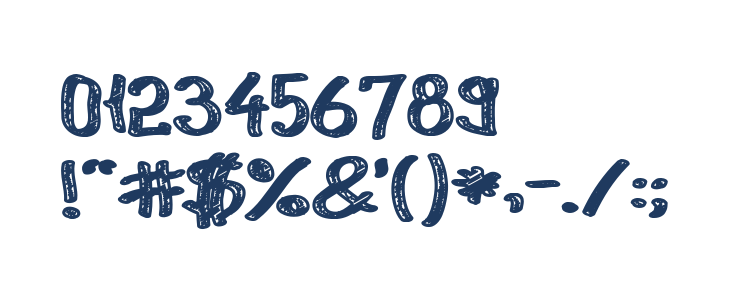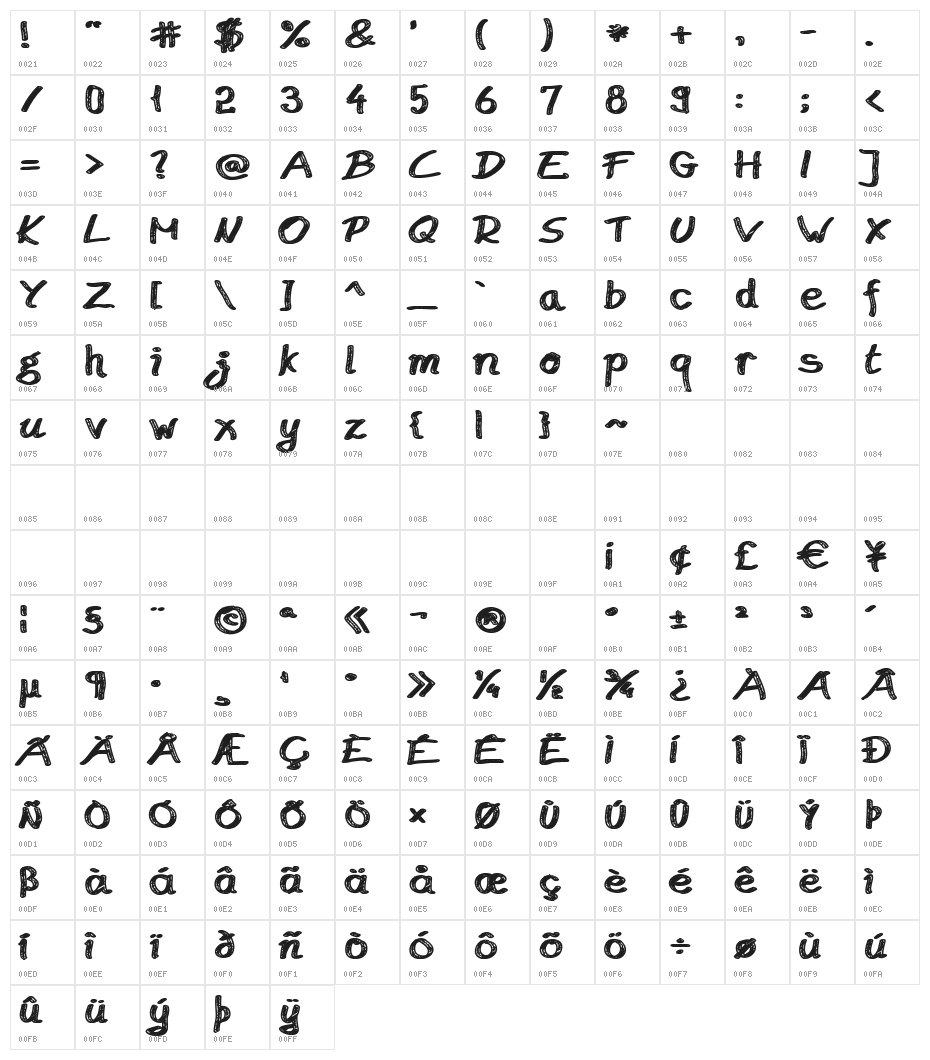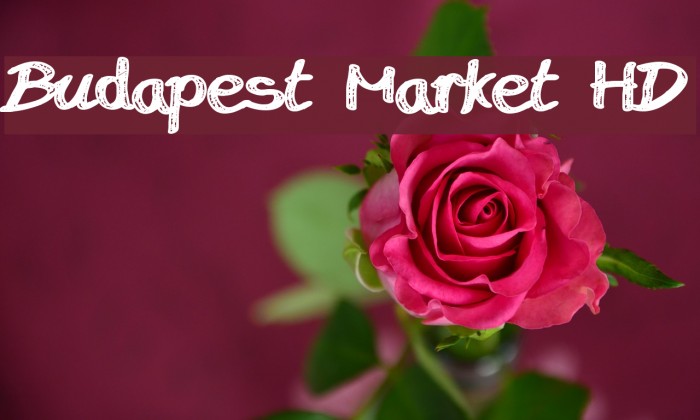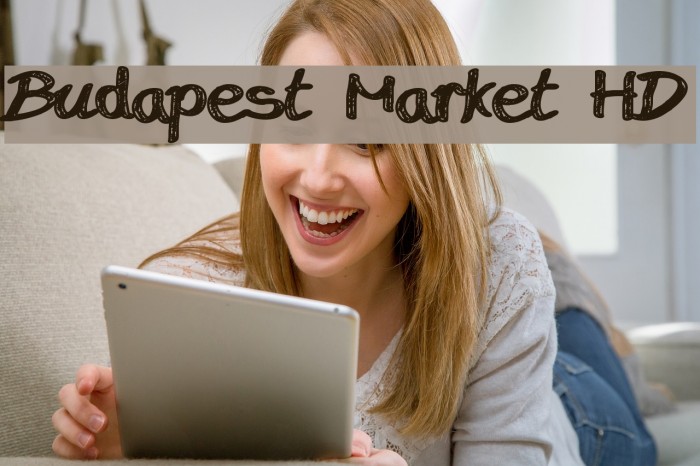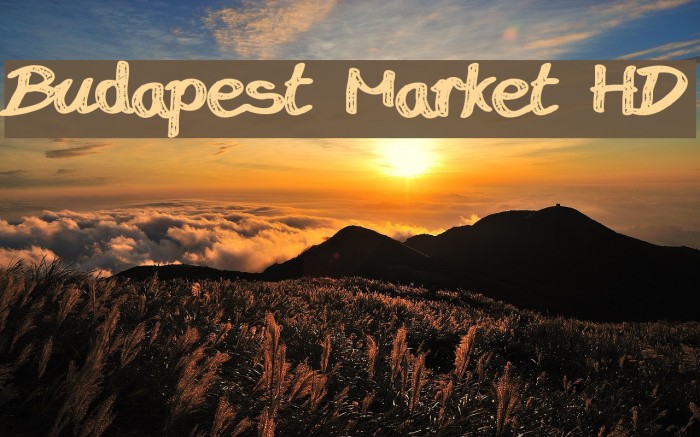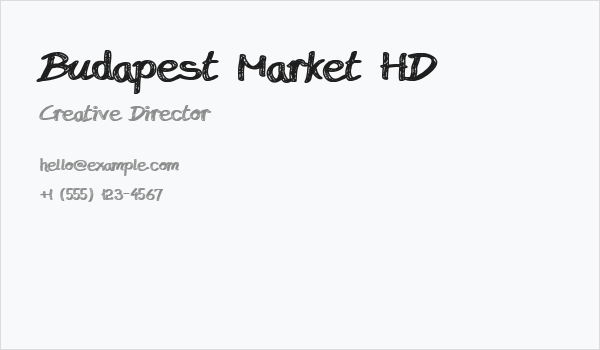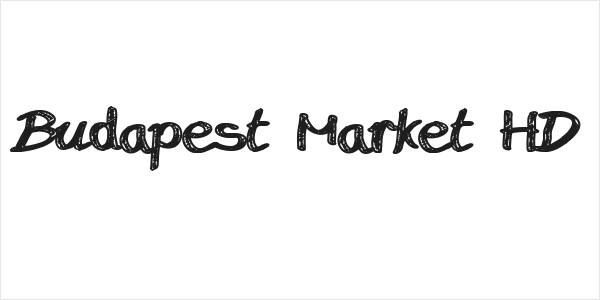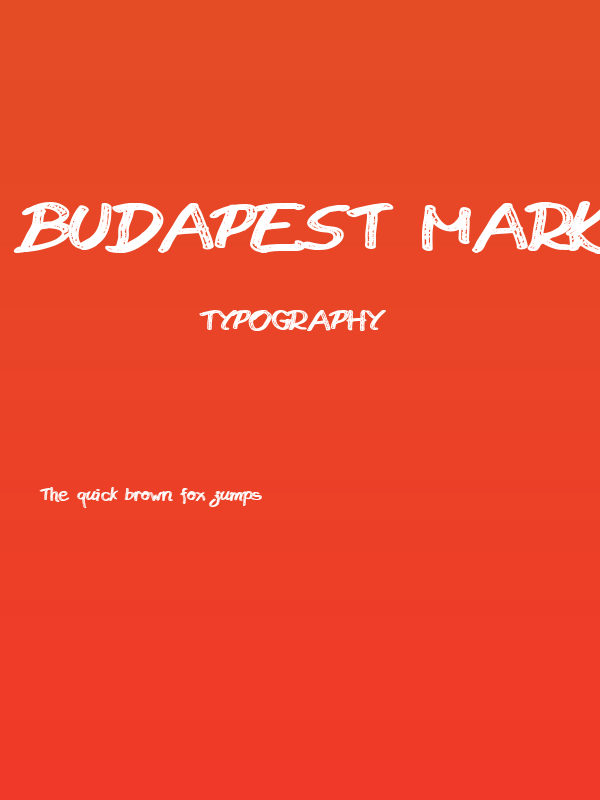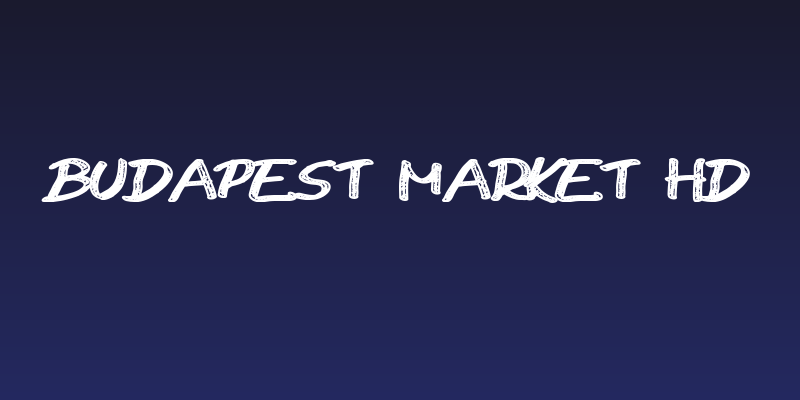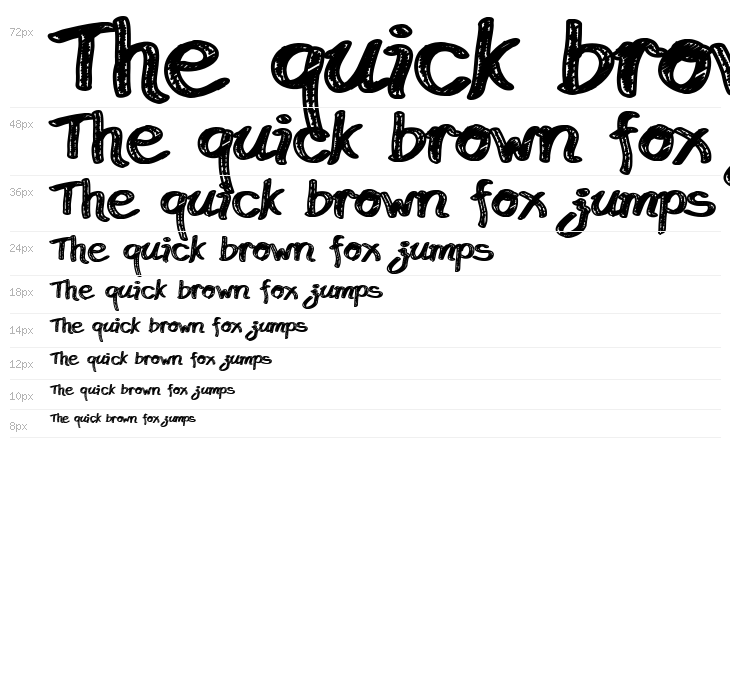
Budapest Market HD Font
Budapest Market HD Description
This font features a playful and artistic style, characterized by its bold and textured appearance. Each letter is crafted with a hand-drawn aesthetic, giving it a unique and informal look. The strokes are thick and uneven, with a slightly rough texture that adds to its charm. The uppercase and lowercase letters maintain a consistent style, with rounded edges and a casual flow. Numbers and special characters are designed to match the overall theme, making them suitable for creative and informal projects. The font's distinct personality makes it ideal for designs that require a touch of whimsy and creativity.
| Proposed Projects | Ideal for children's books, playful branding, creative posters, and artistic invitations. |